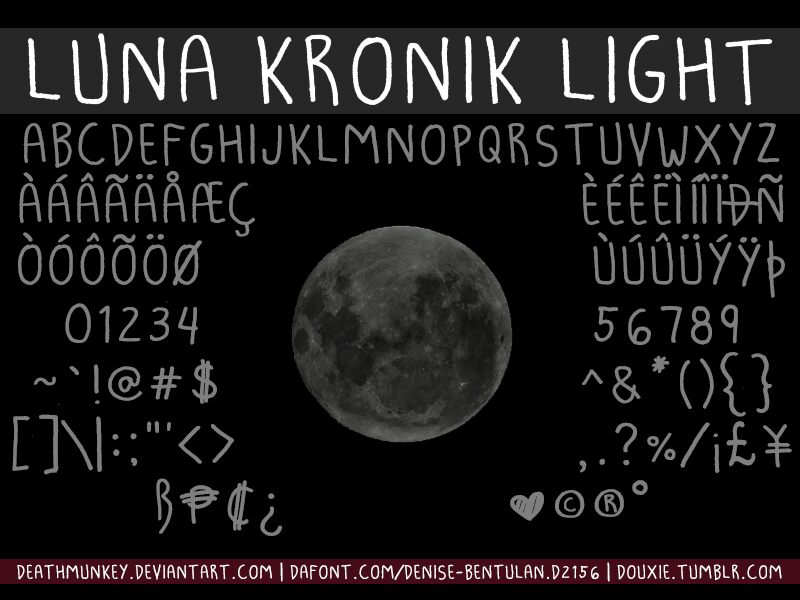
Luna Kronik Light by Denise Bentulan is a free handwritten display font with tall, narrow capitals, rounded arches, slightly pinched joins, and uneven marker-like strokes that change width from one letter to the next. The result is wiry, open, and distinctly informal.
The DIY poster style suits independent music events, skate merchandise, youth magazine covers, and album covers for independent labels, where the irregular lettering can echo hand-drawn graphics and photocopied artwork. Its long upright strokes and wobbling curves also make lively lettering for cafe packaging and casual storefront signs, with repeated marker lines becoming part of the illustration itself.